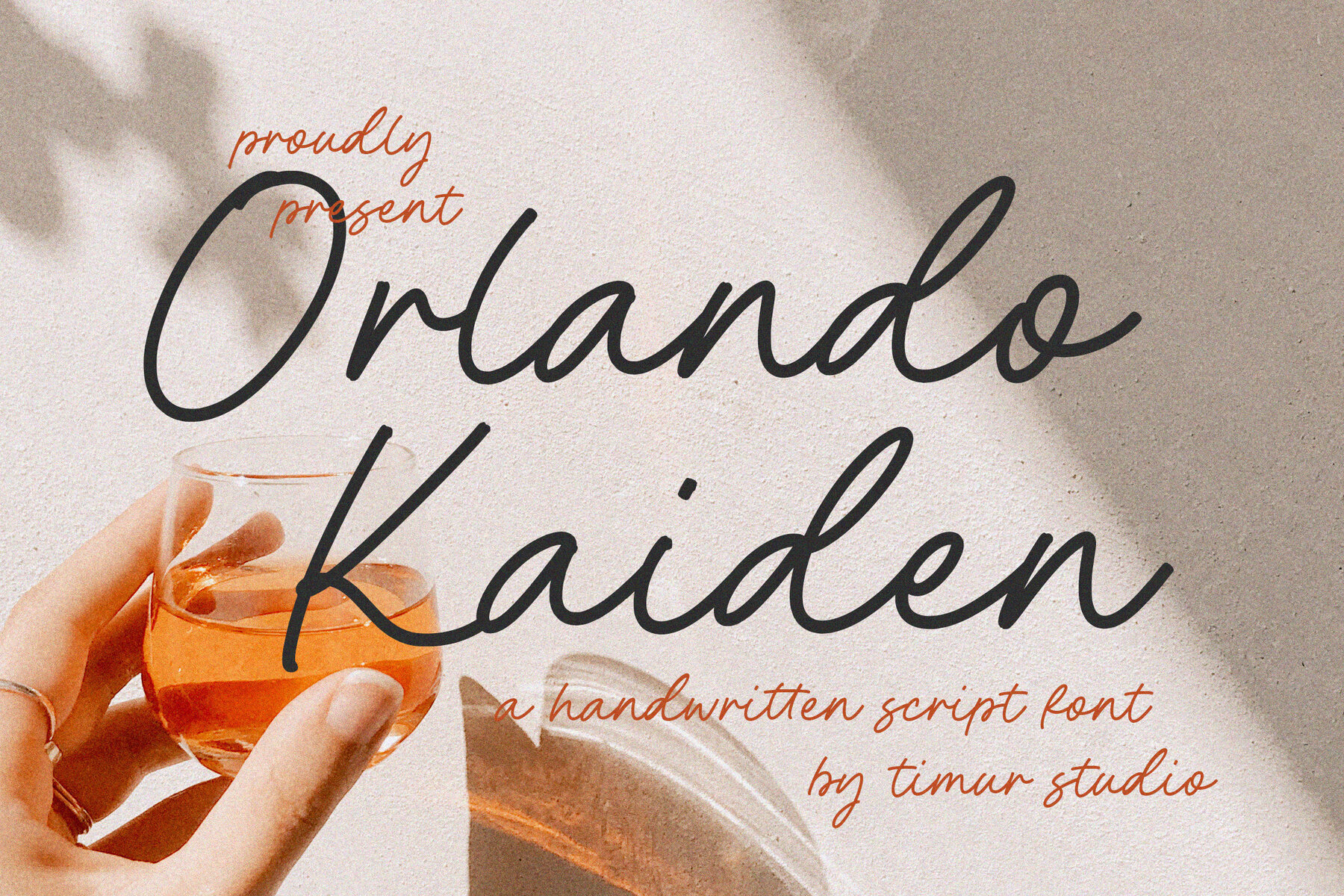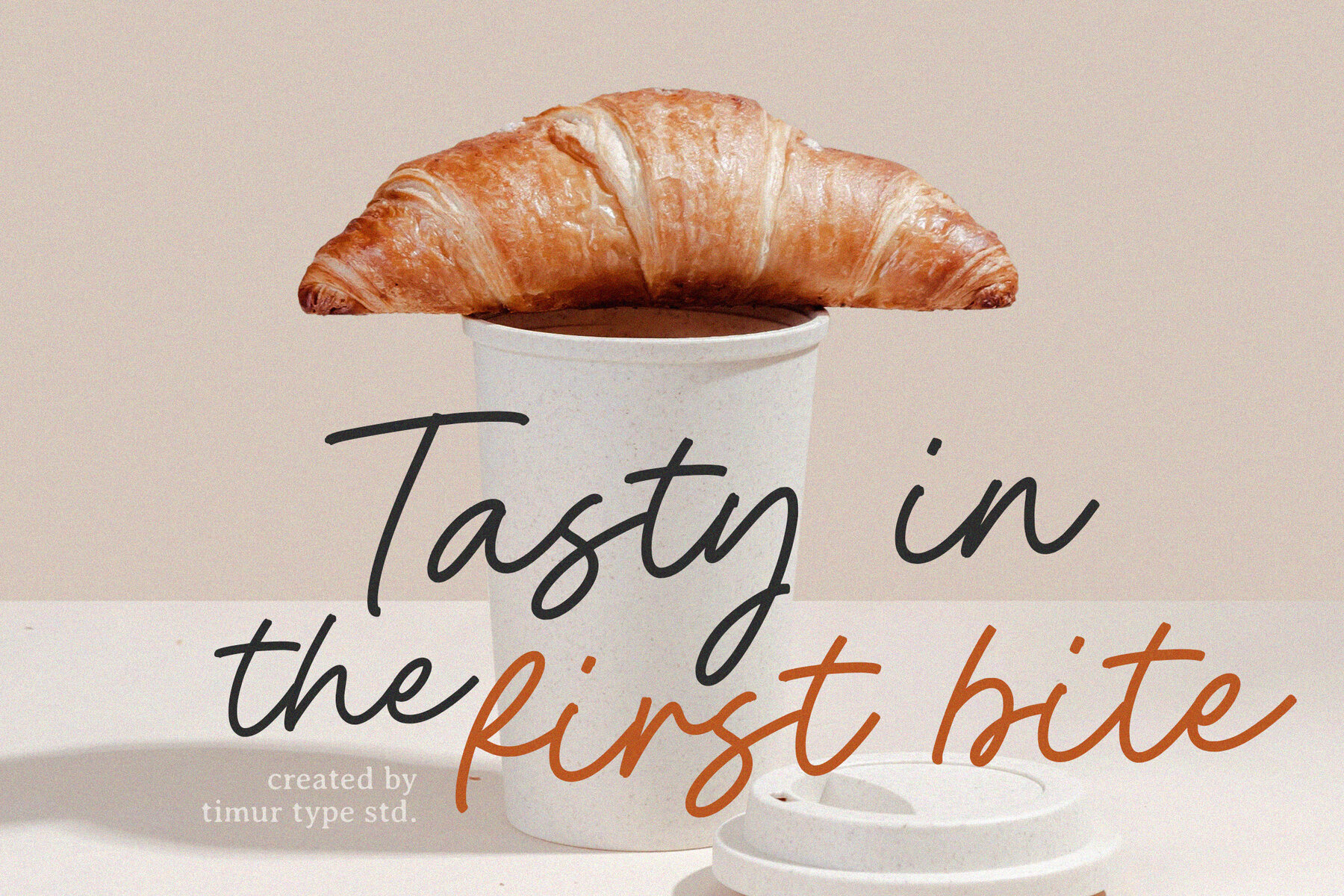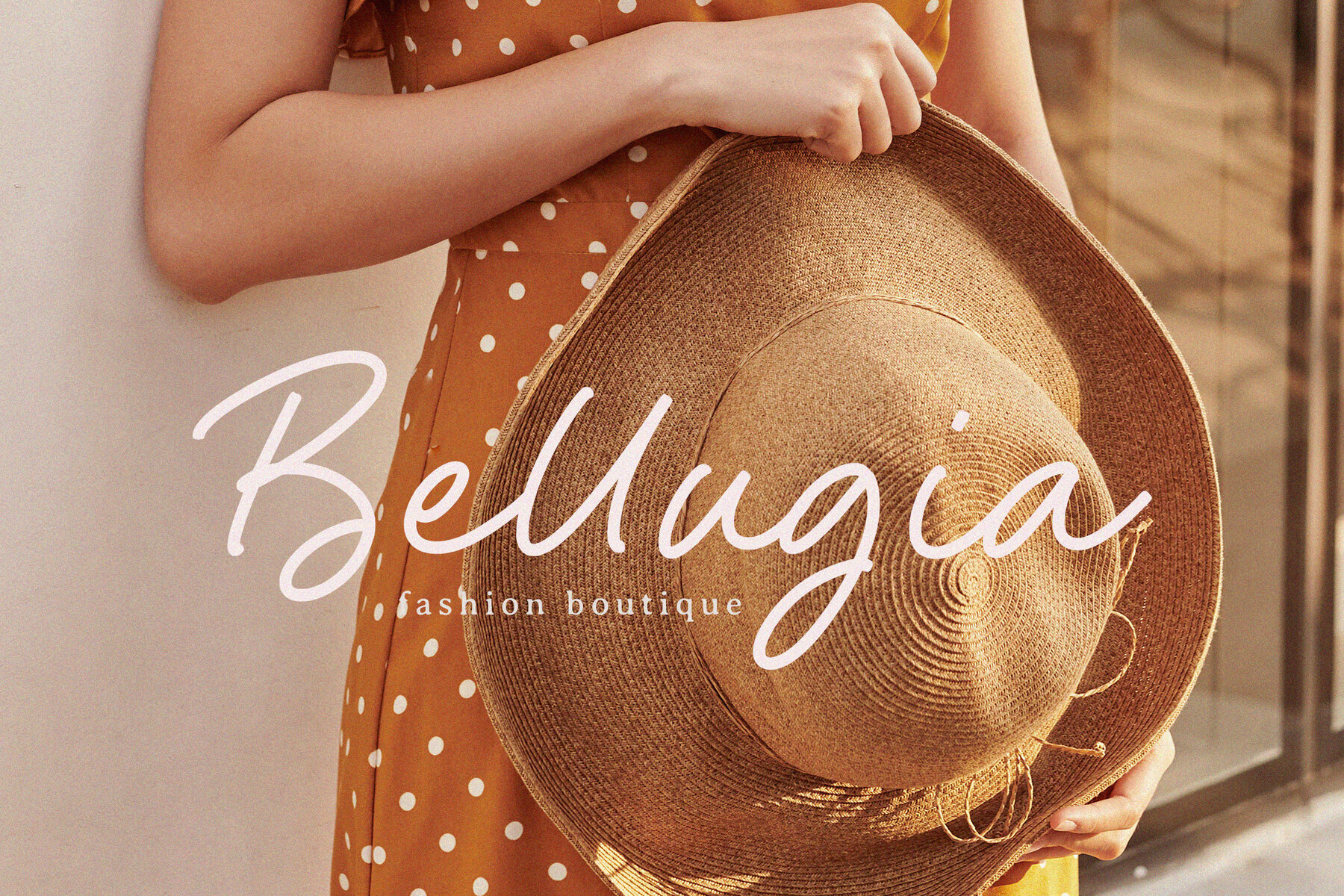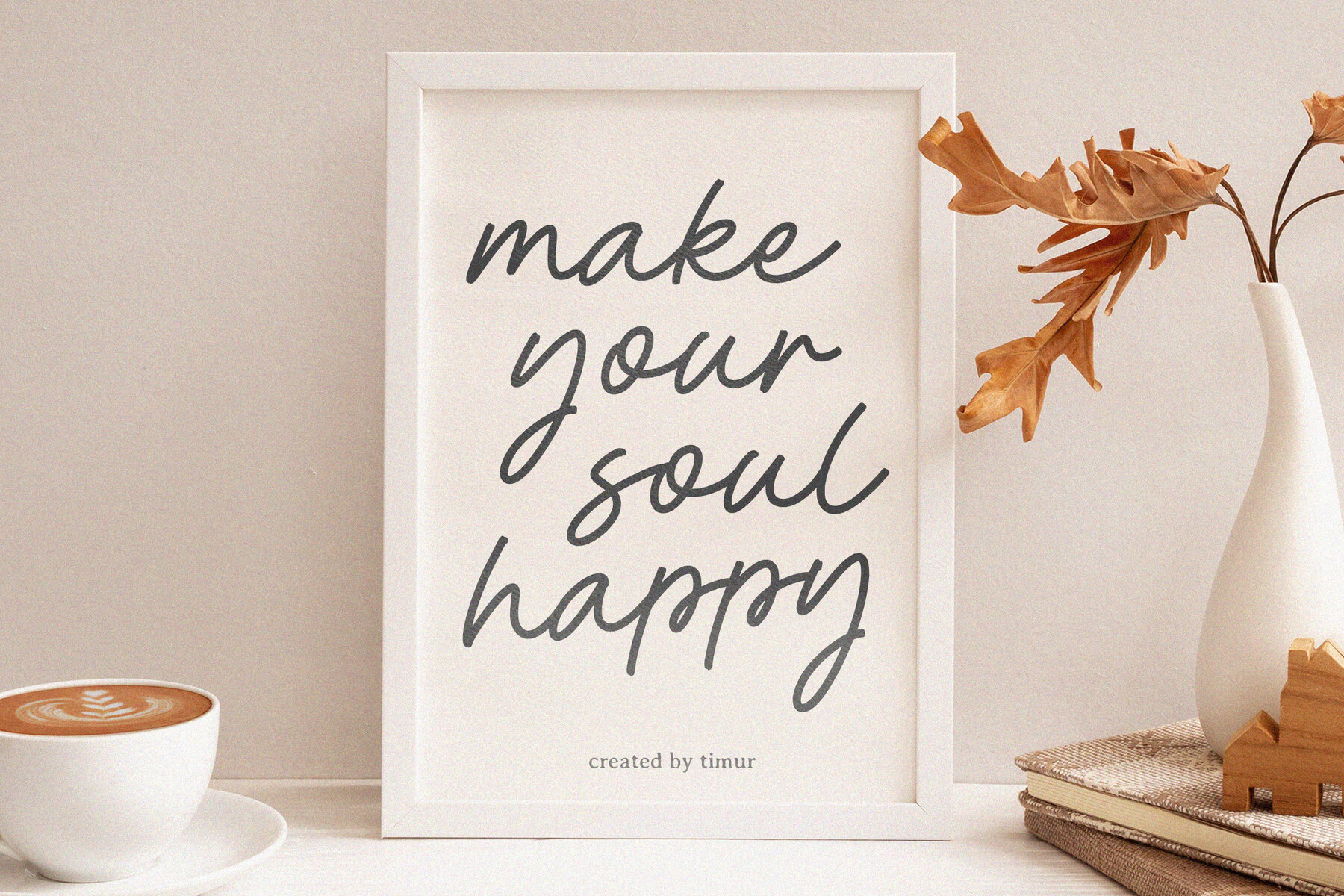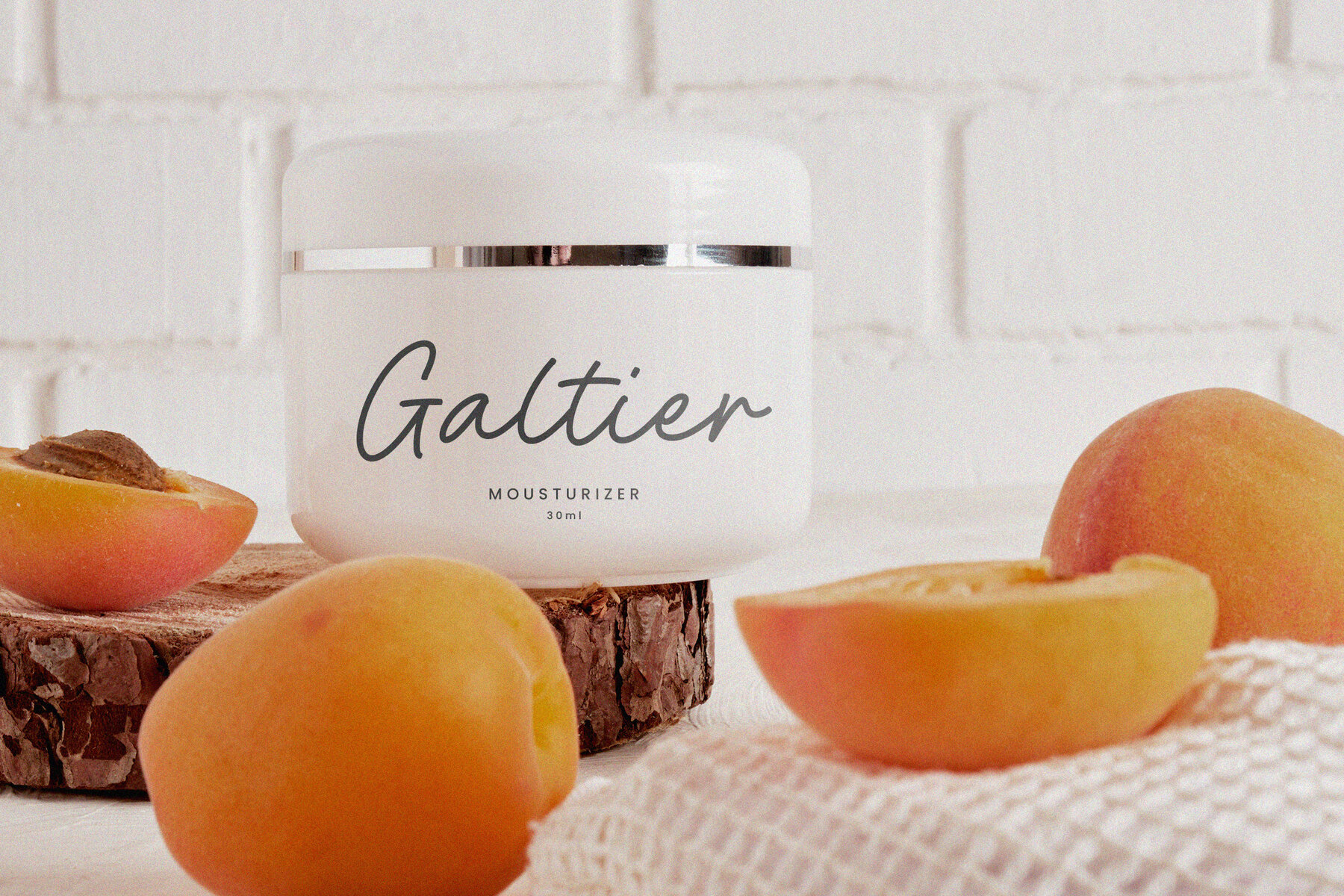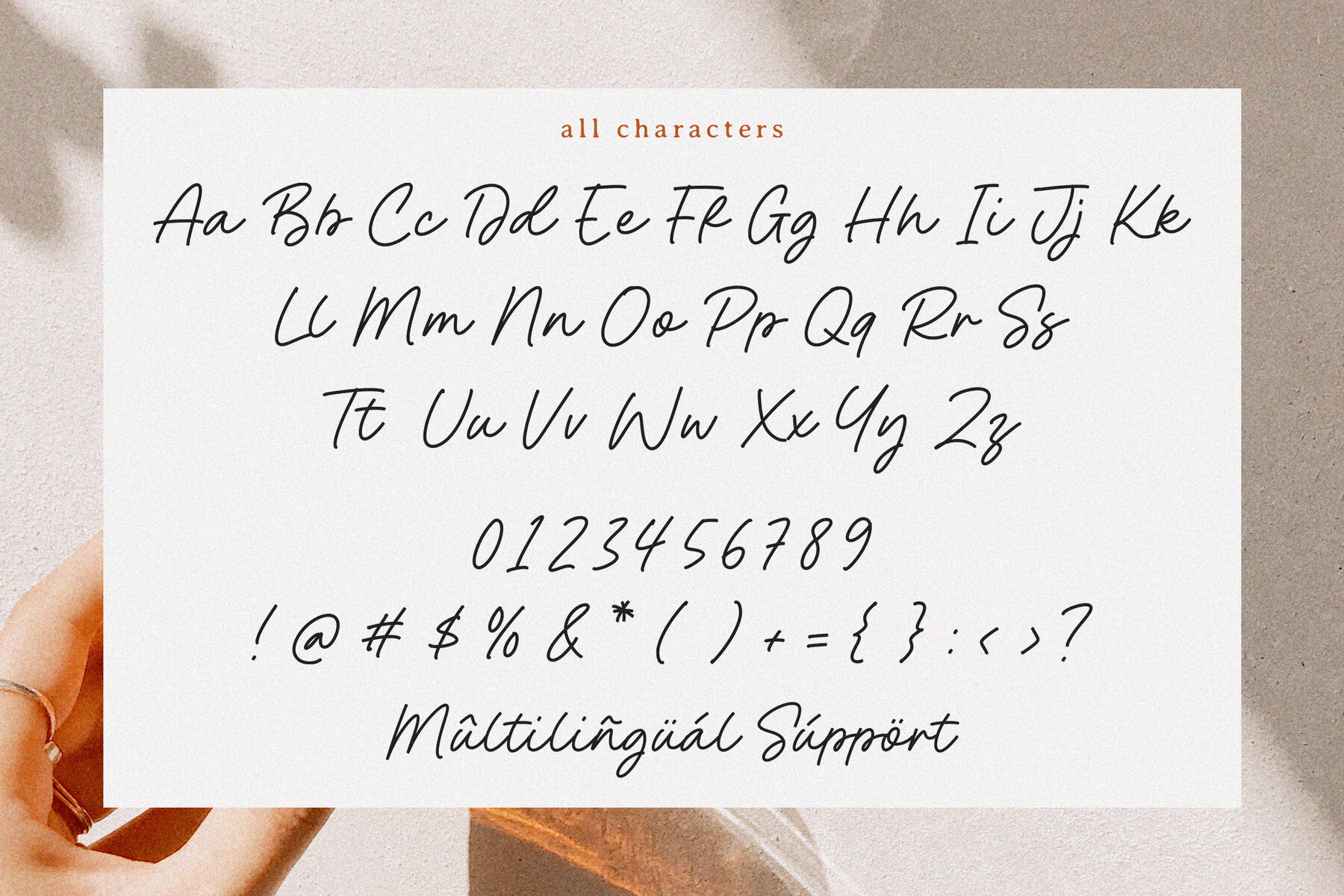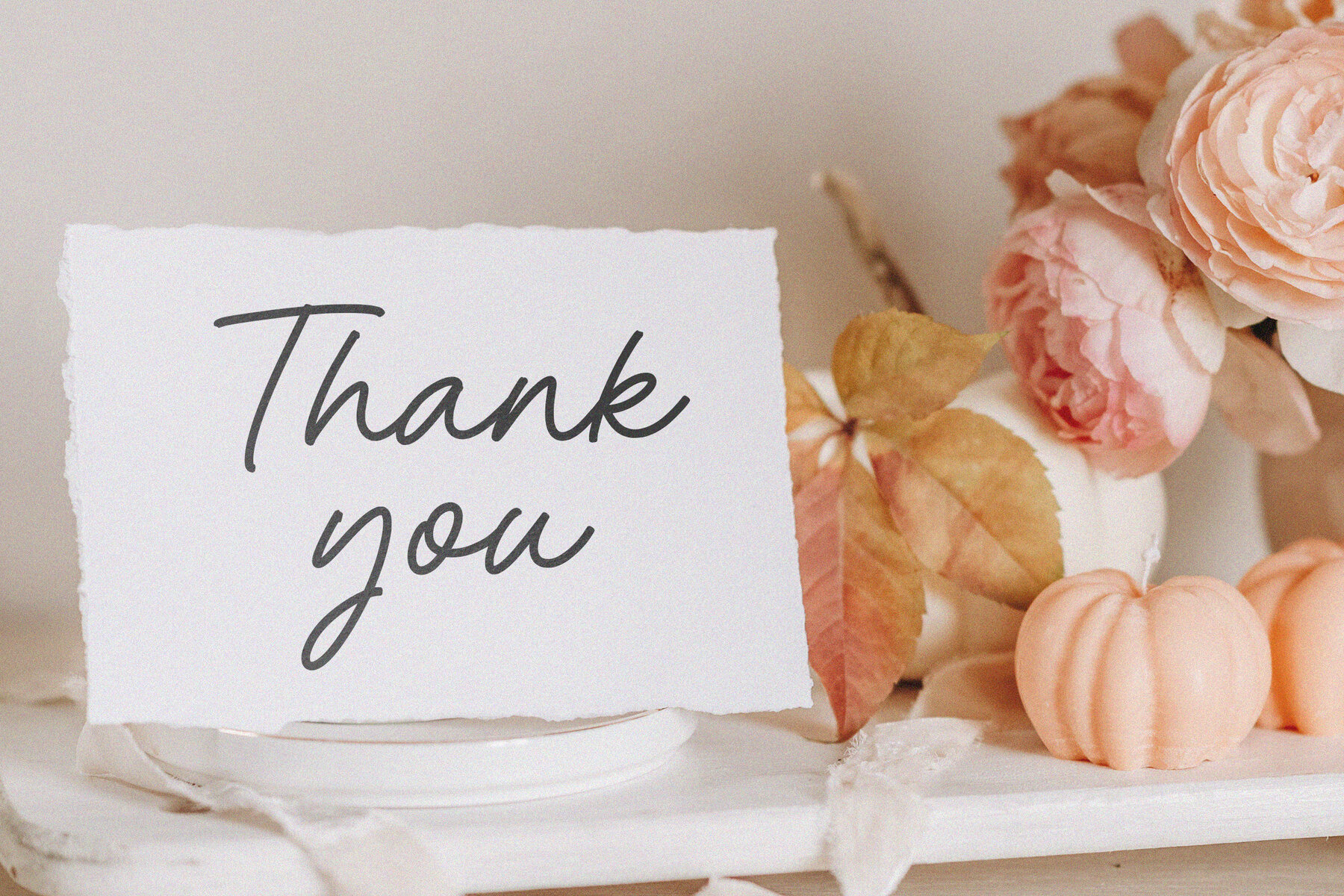
Orlando Kaiden Font
Orlando Kaiden
This chic and expressive handwritten script font offers fluid, dynamic strokes that mimic natural penmanship. Perfect for projects seeking a personal touch, it shines in logos, invitations, and headlines requiring a showcase-style elegance.